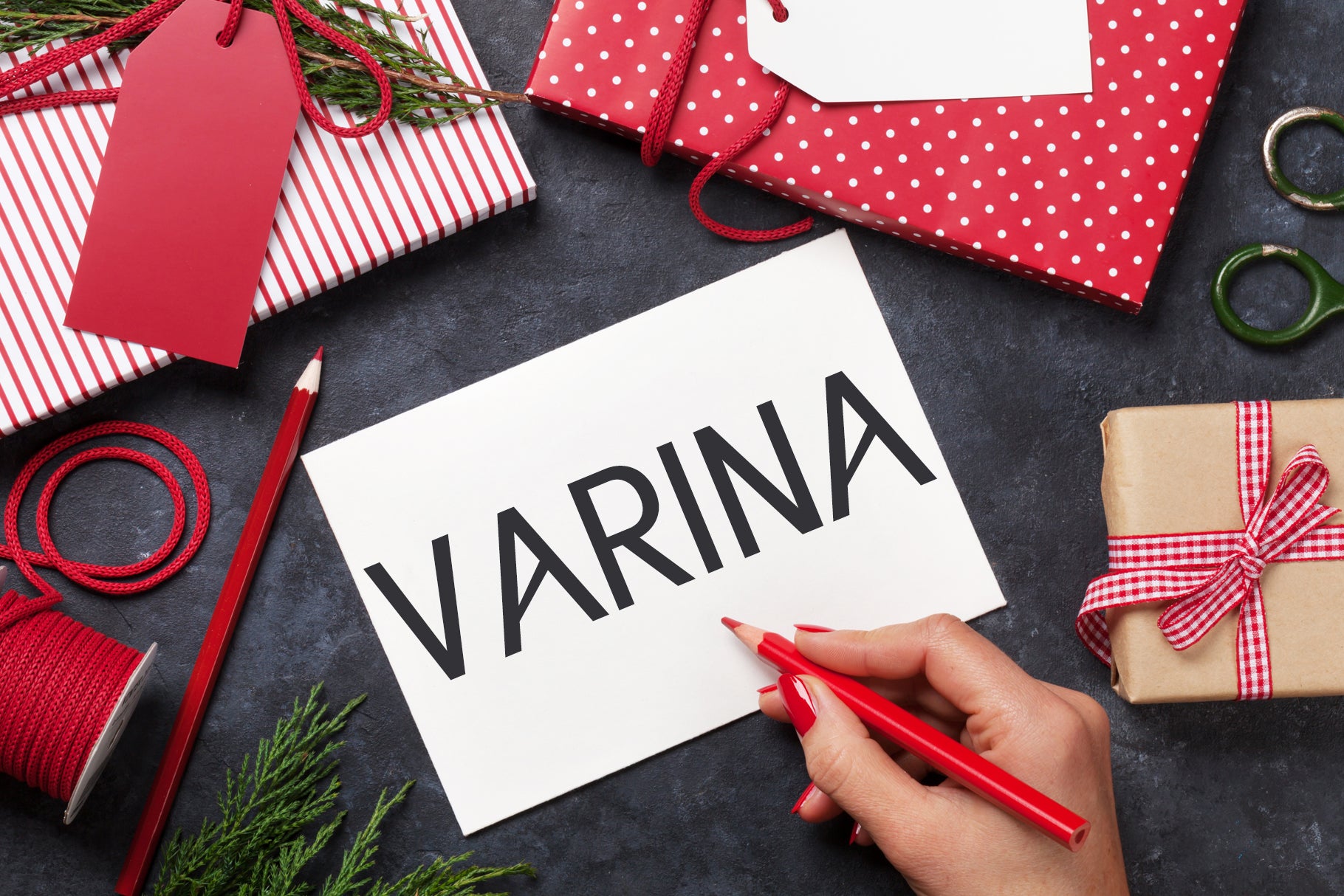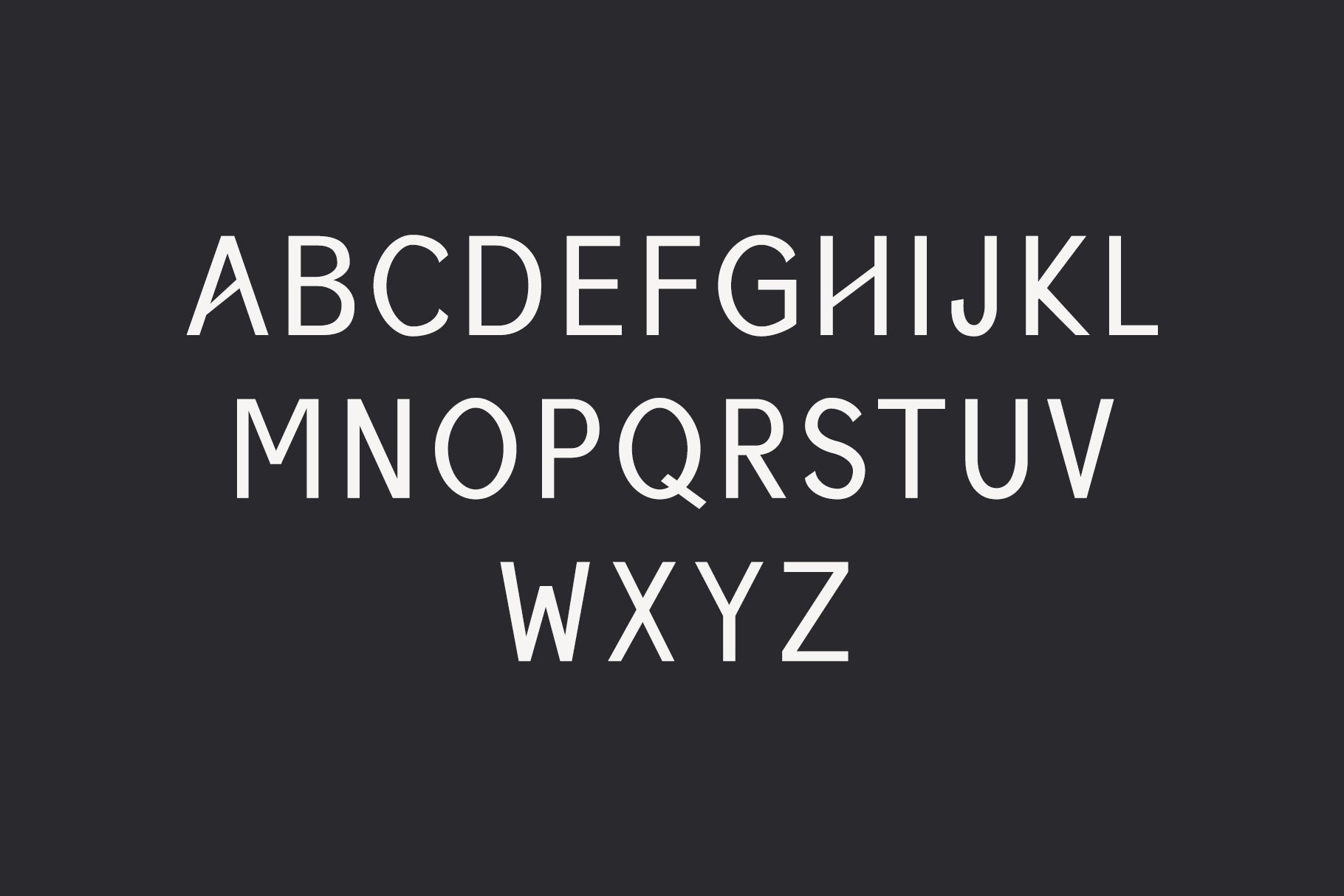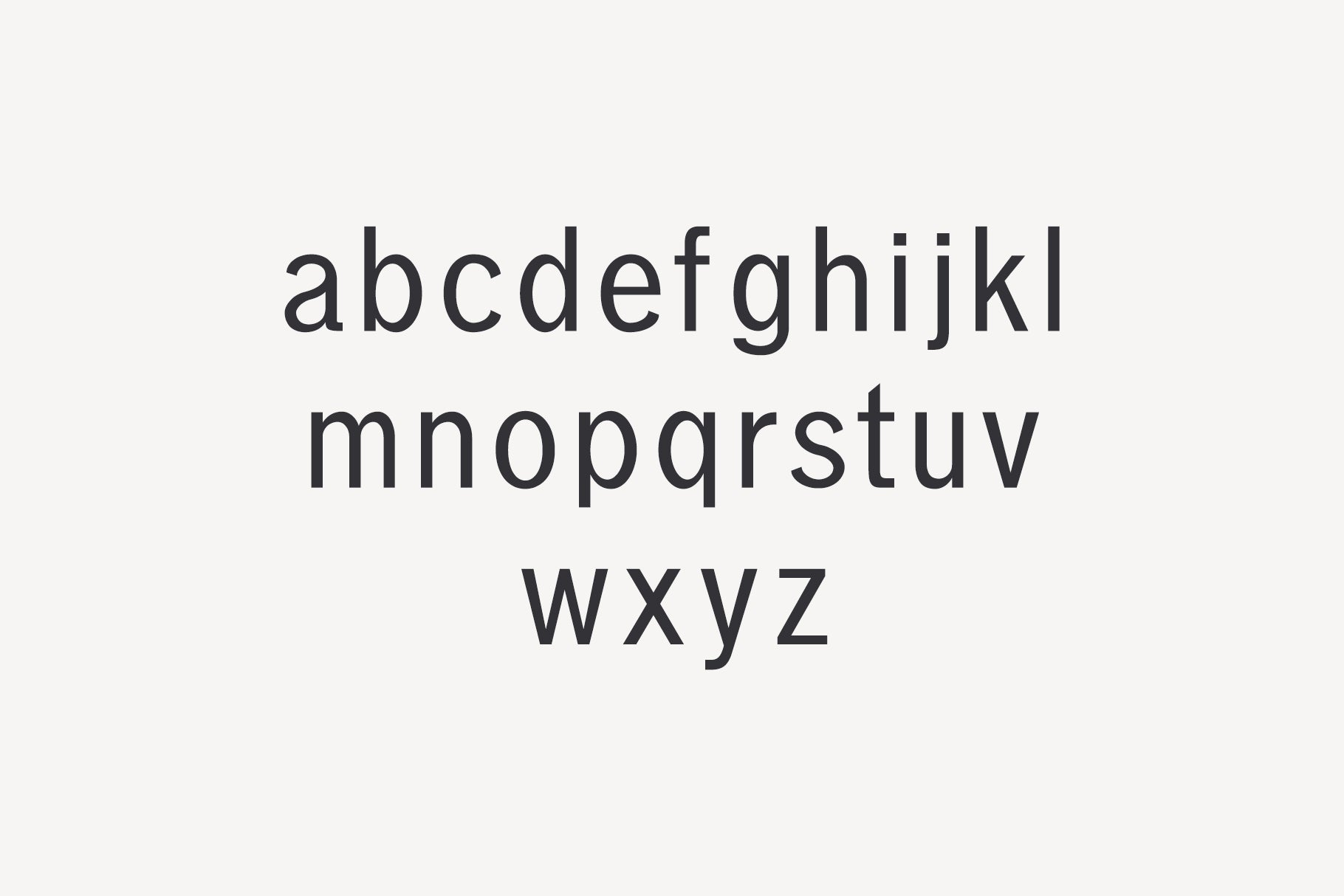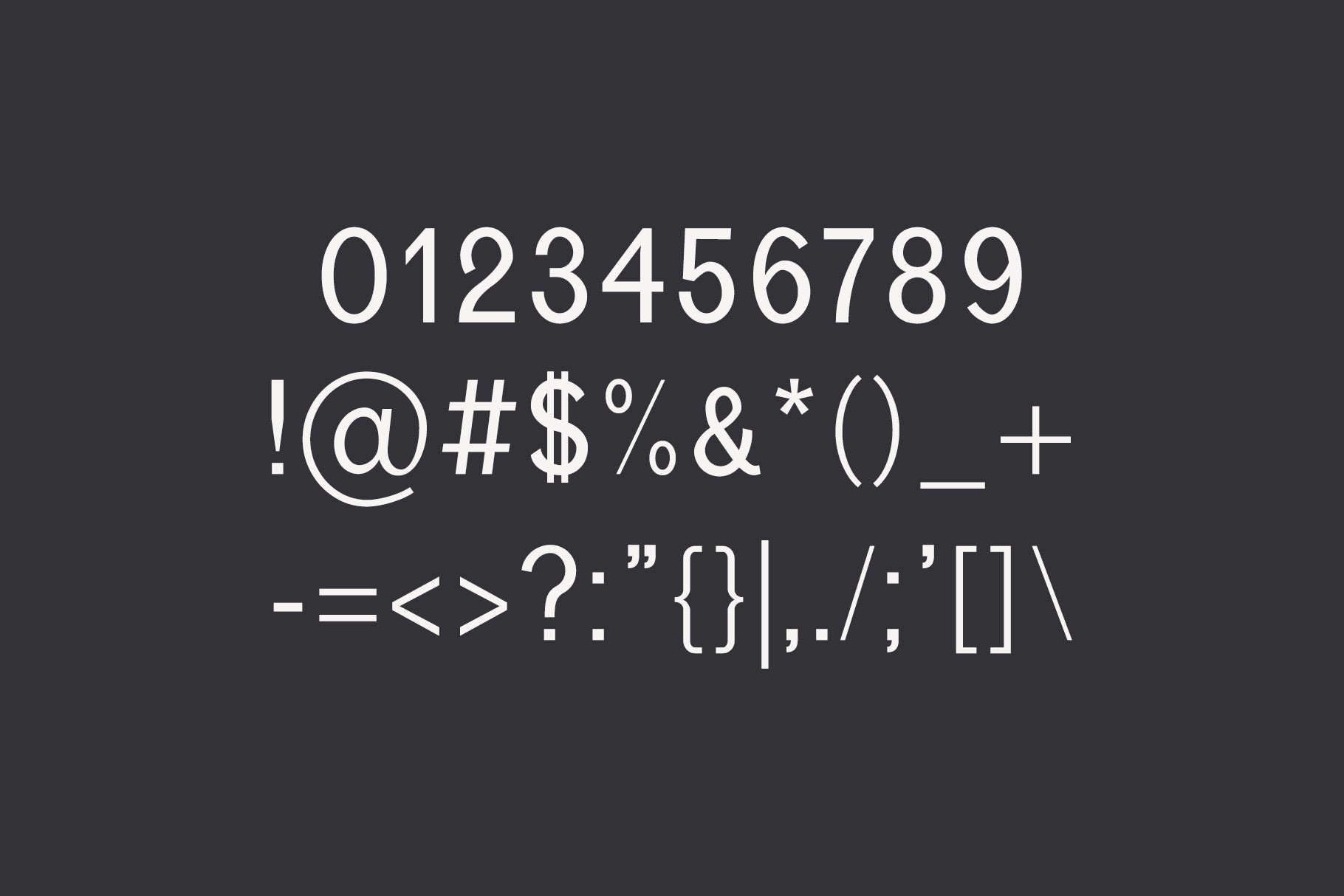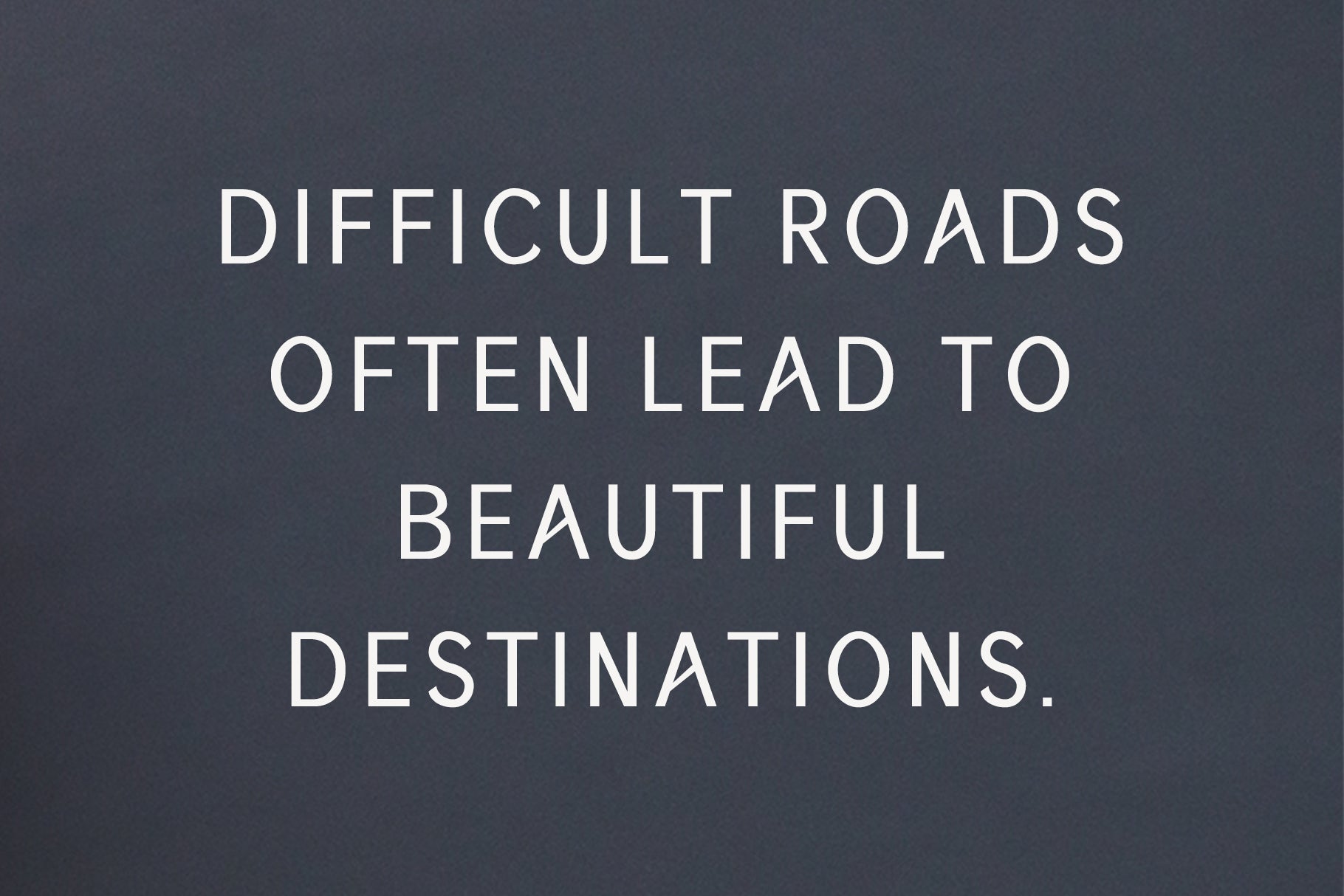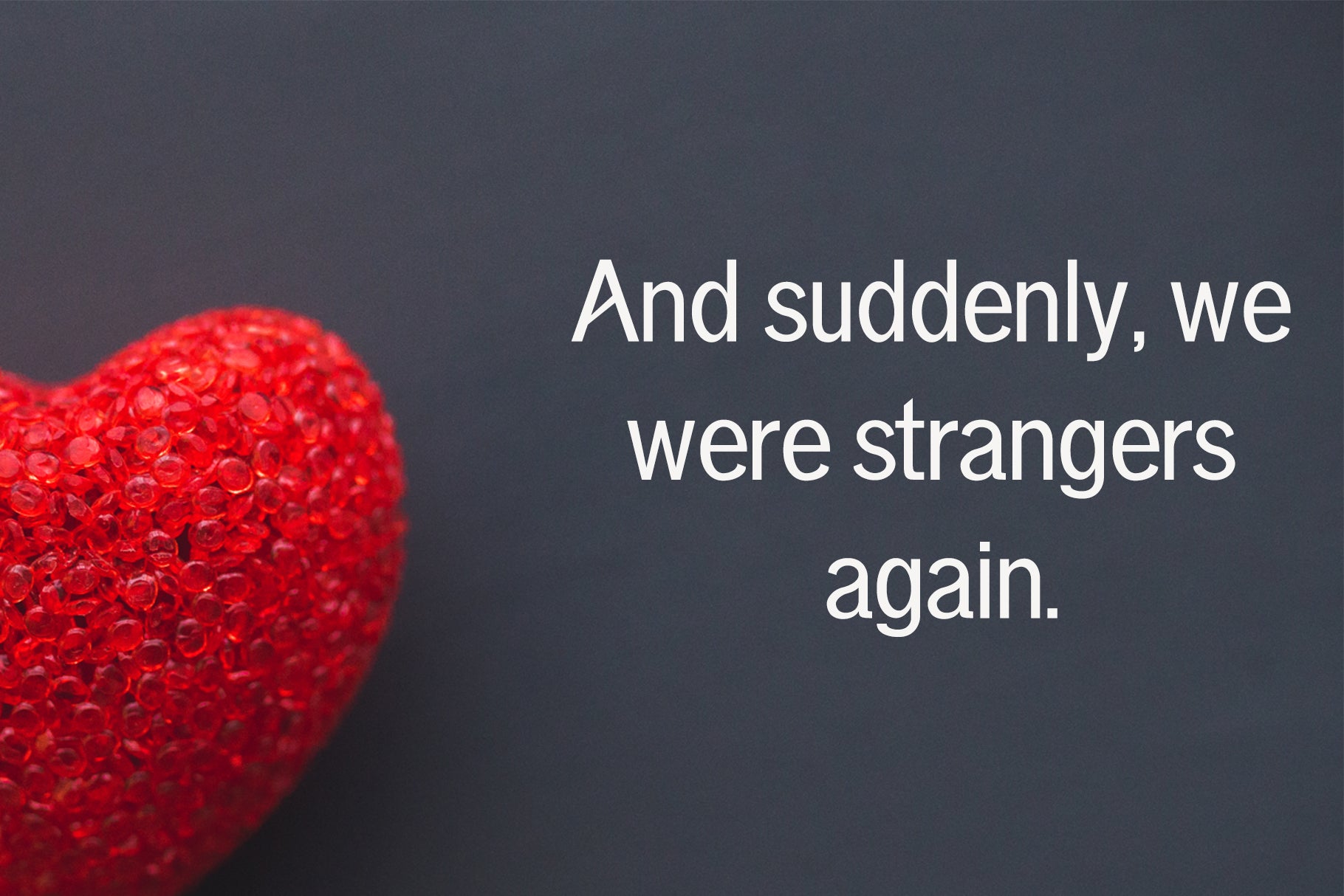
Varina is a geometric modern and soft sans serif typeface. Varina looks smooth in any layout with it's sleek rounded lines.
Font Weight: Bold, Light, Outline, Regular and Thin
Uppercase Multilingual Letters
Lowercase Multilingual Letters
Numbers & Punctuation
Non English Characters (Latin Supplement + Latin Extended A)